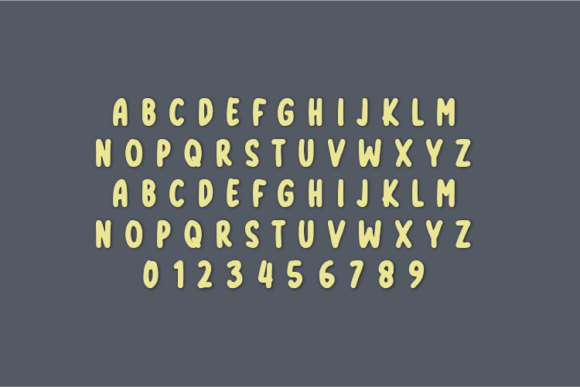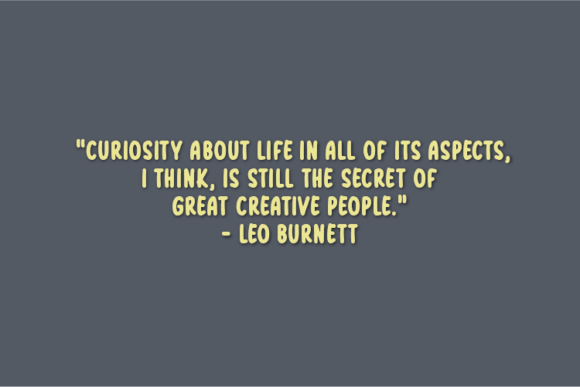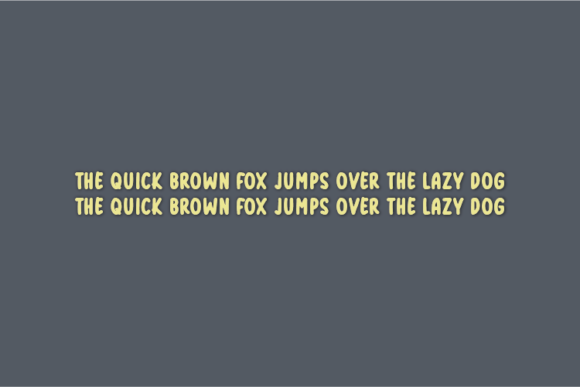
Introduction to Milky Lemon Font
Remember that moment when you finally found the perfect design resource to elevate your creative project? It’s like a breath of fresh air, isn’t it? For designers, discovering a high-quality font can be a game-changer, and that’s exactly what we’re about to explore – the Milky Lemon Font.
This lovely handwritten font is a natural gem, perfect for any topic you can imagine. Its unique charm is sure to captivate your audience and leave a lasting impression. Whether you’re working on a design project or simply looking for a beautiful font to add some flair to your social media posts, the Milky Lemon Font has got you covered.
With its transparent background and free download option, this font is an absolute must-have for any designer’s library. Its versatility and high-quality design make it an ideal choice for a wide range of creative projects, from elegant invitations to playful blog posts.
Key Features of Milky Lemon Font
- Features a transparent background, allowing for easy integration into various design elements.
- Designed to be highly legible, with a clear and readable font style suitable for a variety of applications.
- Unique characteristics include a soft, milky texture and a hint of citrus-inspired color, making it a standout design element.
Honest Review: Milky Lemon Font
As a designer, I’m always on the lookout for high-quality design resources that can elevate my creative projects. The Milky Lemon Font caught my eye, and I was excited to give it a try.
- ✨ Beautiful, hand-drawn feel: The Milky Lemon Font has a unique, whimsical quality that’s perfect for adding a touch of personality to your designs.
- ✨ Wide range of weights and styles: With multiple weights and styles available, you can mix and match to create a look that’s all your own.
- ✨ Easy to read: The font is highly legible, making it perfect for body text, headings, and even logos.
- ⚠️ Limited support for transparent backgrounds: Unfortunately, the Milky Lemon Font doesn’t play well with transparent backgrounds, which can be a bit of a bummer for designers who like to get creative with their backgrounds.
Overall, I’d say the Milky Lemon Font is a solid choice for designers looking for a unique, high-quality font to add some personality to their creative projects. While it may have some limitations, its strengths far outweigh its weaknesses.
The Milky Lemon Font is perfect for creative projects like branding, marketing materials, and social media graphics. It’s also great for use in presentations, reports, and other business documents. With its unique and stylish design, the Milky Lemon Font is sure to make your project stand out.
Q: Is the Milky Lemon Font suitable for print or digital projects?
The Milky Lemon Font is designed to be versatile and suitable for both print and digital projects. Its high-quality design ensures it looks great on various mediums, from business cards to website headers. However, if you’re planning to use it for large-scale printing, we recommend checking the font’s legibility at the desired size and resolution.